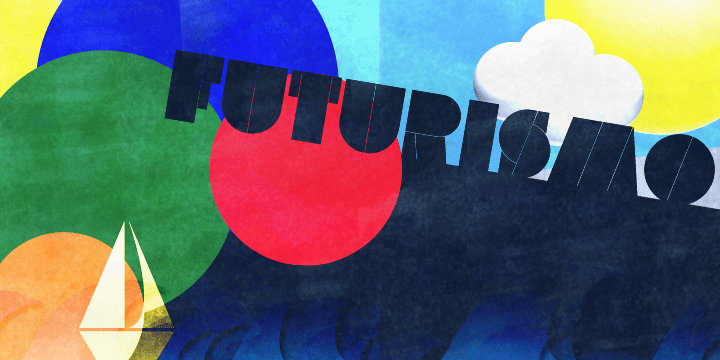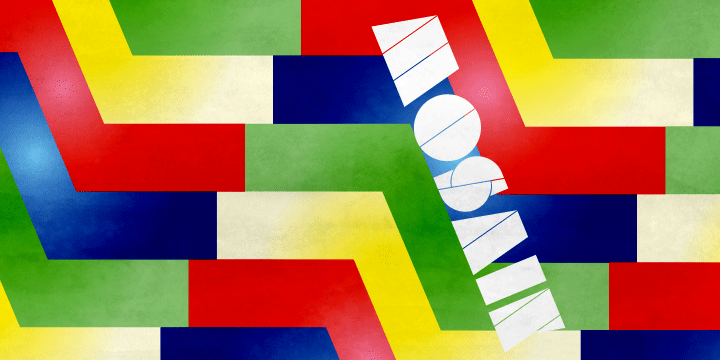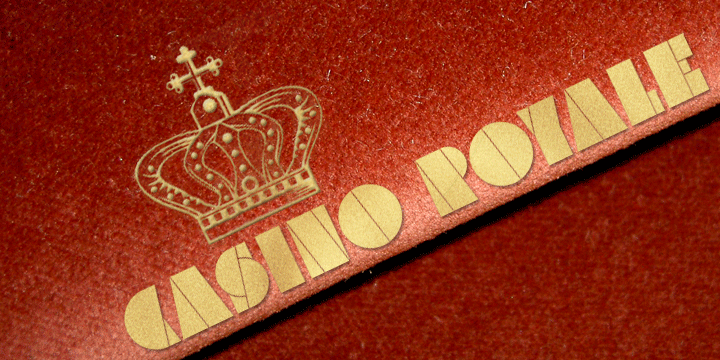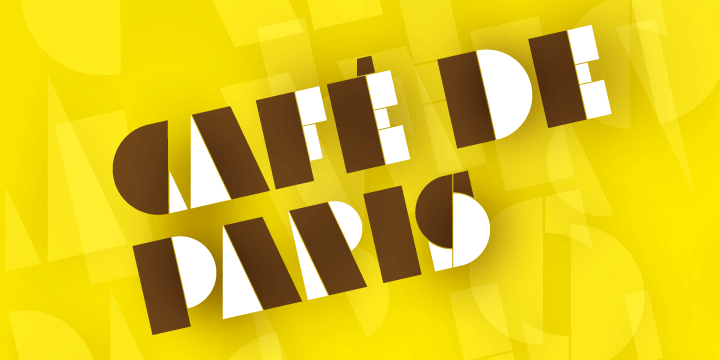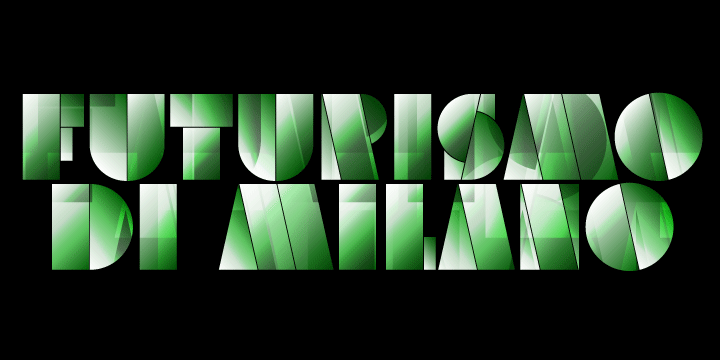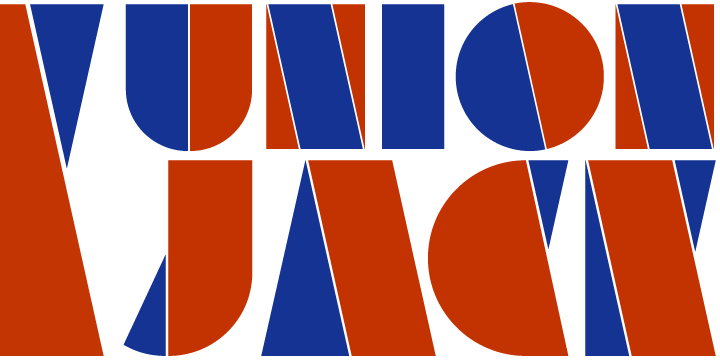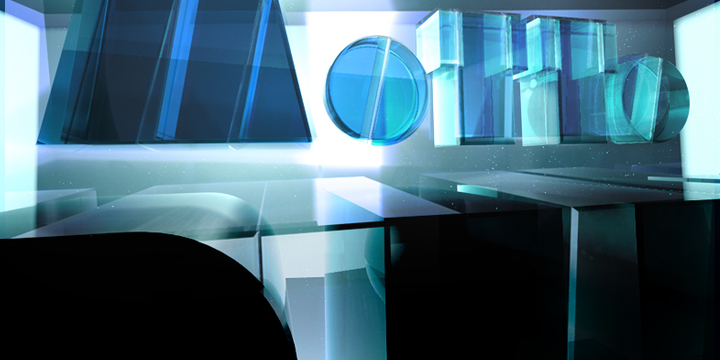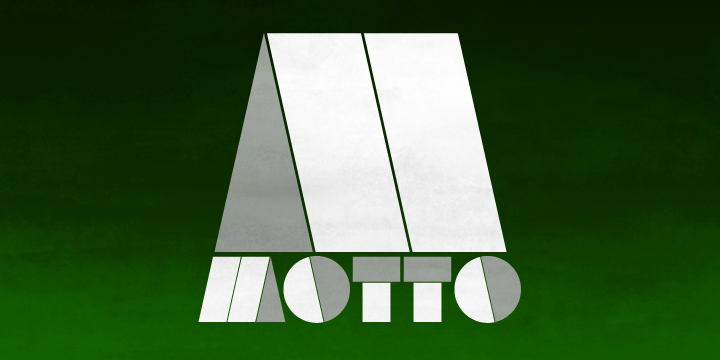
Combining Bicolor A and B you will create astounding multicolored pieces of typography.
To achieve the two-tone effect shown in the samples, you need to use an application that supports layers such as Adobe Illustrator, Adobe InDesign, Adobe PhotoShop or Quark.